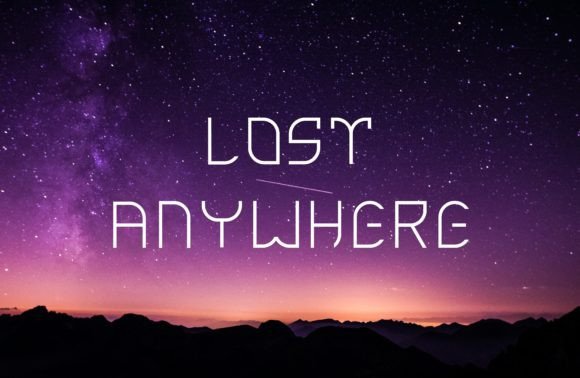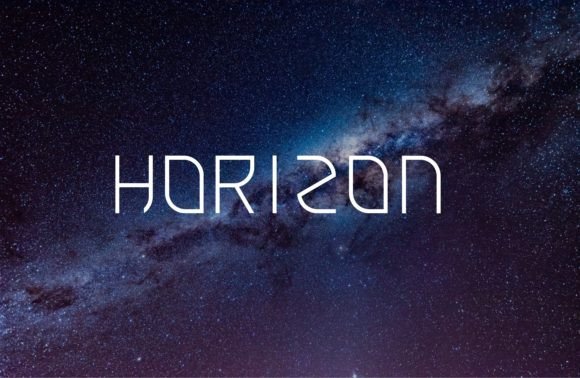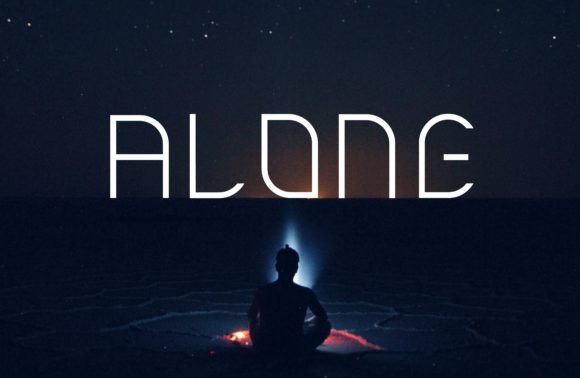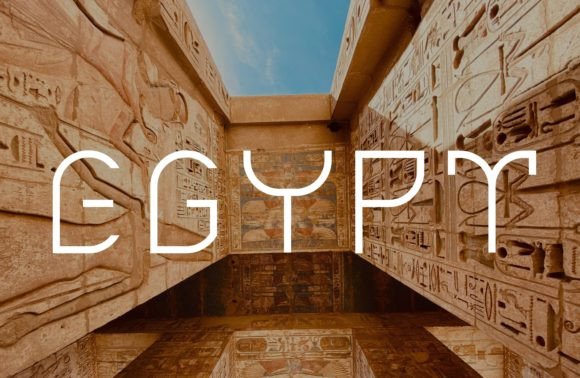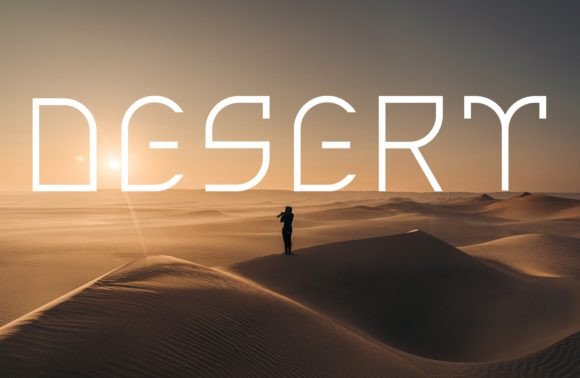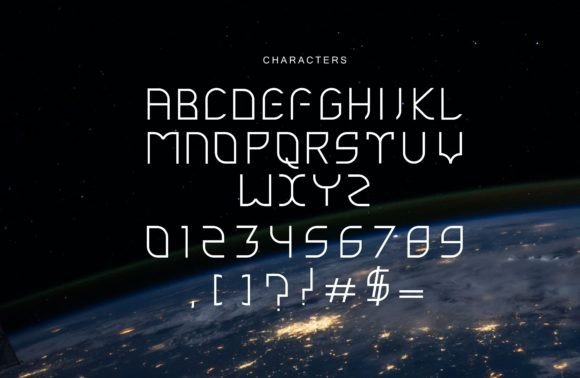
Introduction to Ilang Font
The Ilang font is made a simple minimalist artistic font suitable for aesthetic things, very suitable for logotypes, headline fonts, in corporate identity, brand identity, apparel industry, posters, music, movies, games, magazines, books, comics, cartoons, YouTube, Instagram , website or your creative design project.
Key Features of Ilang Font